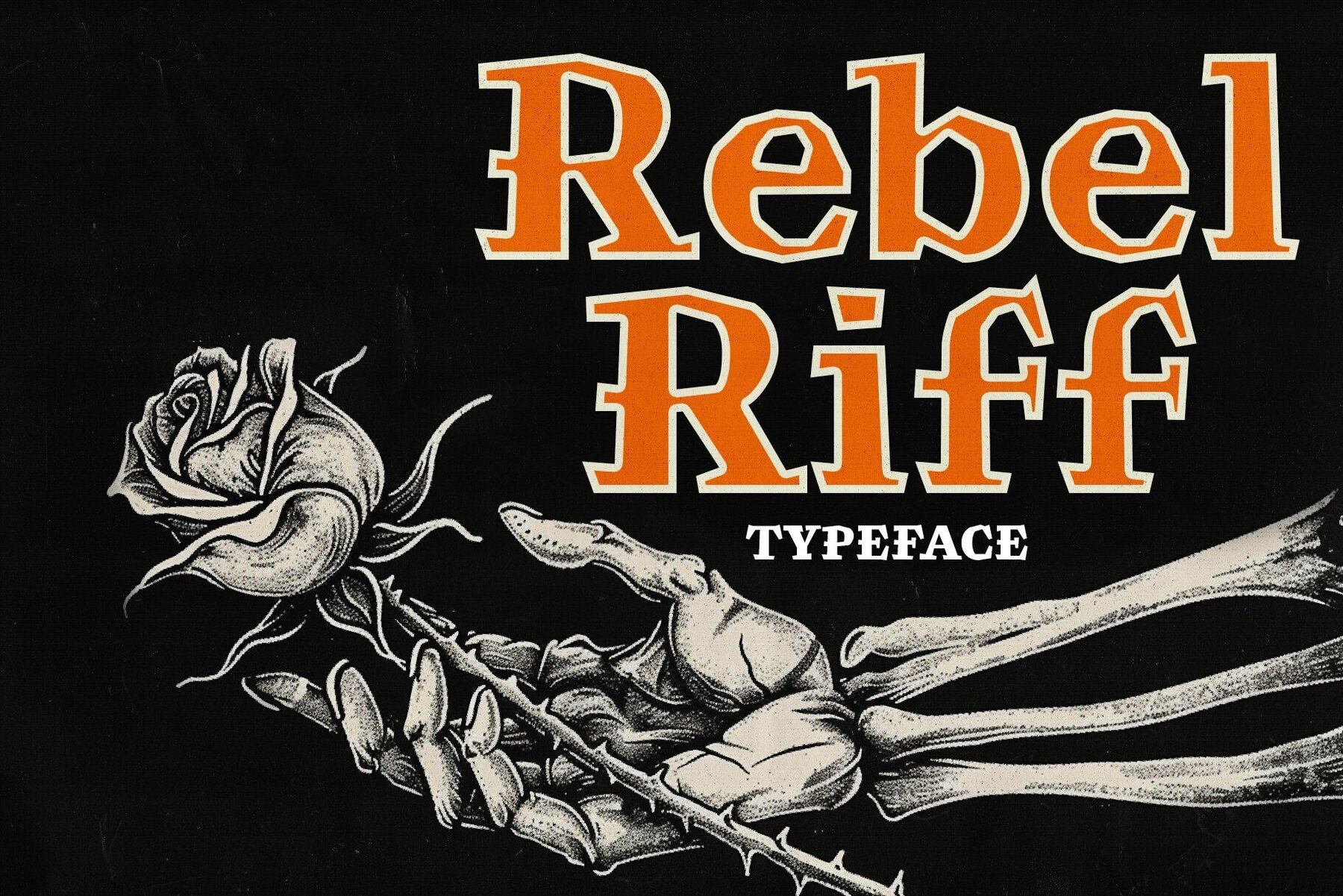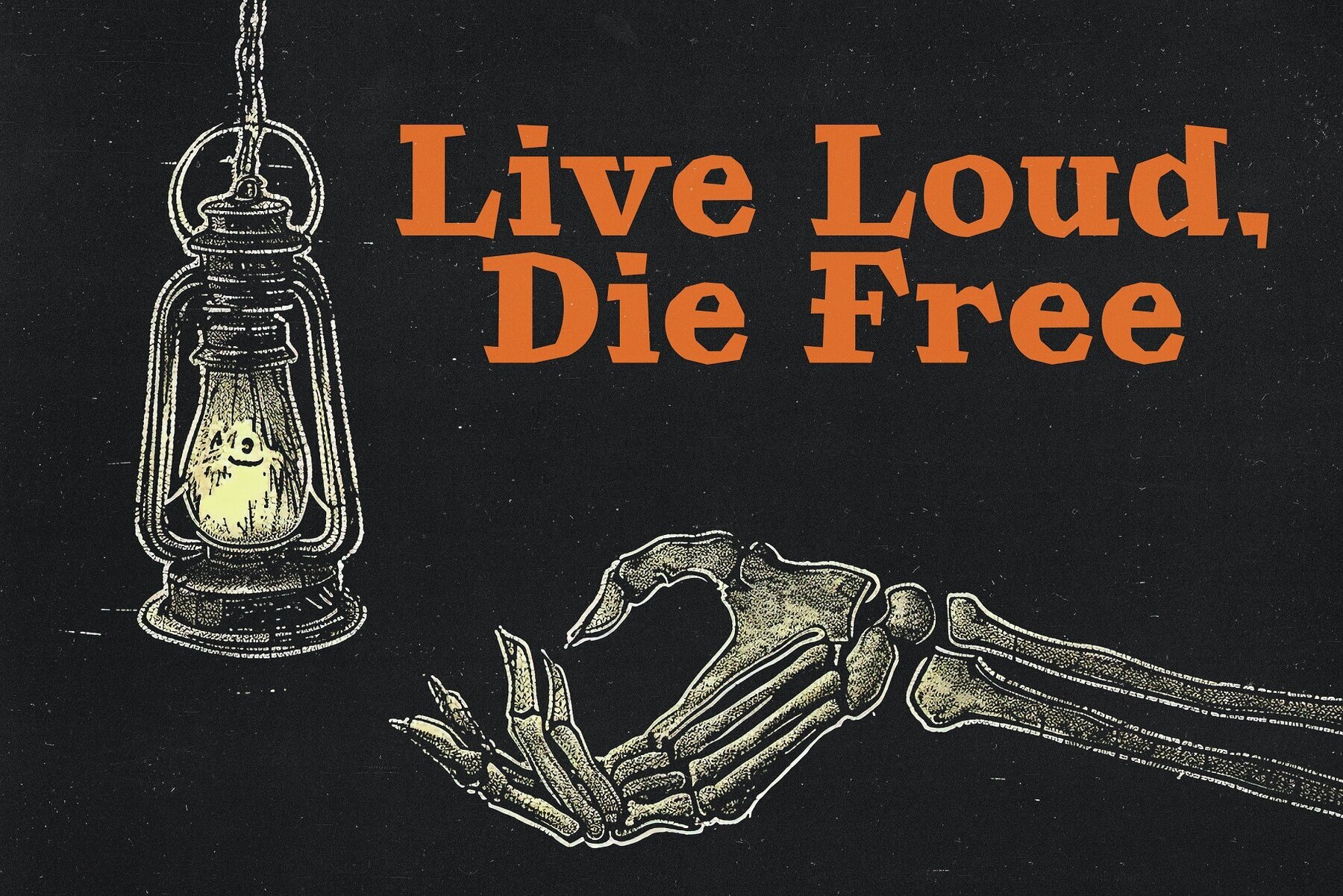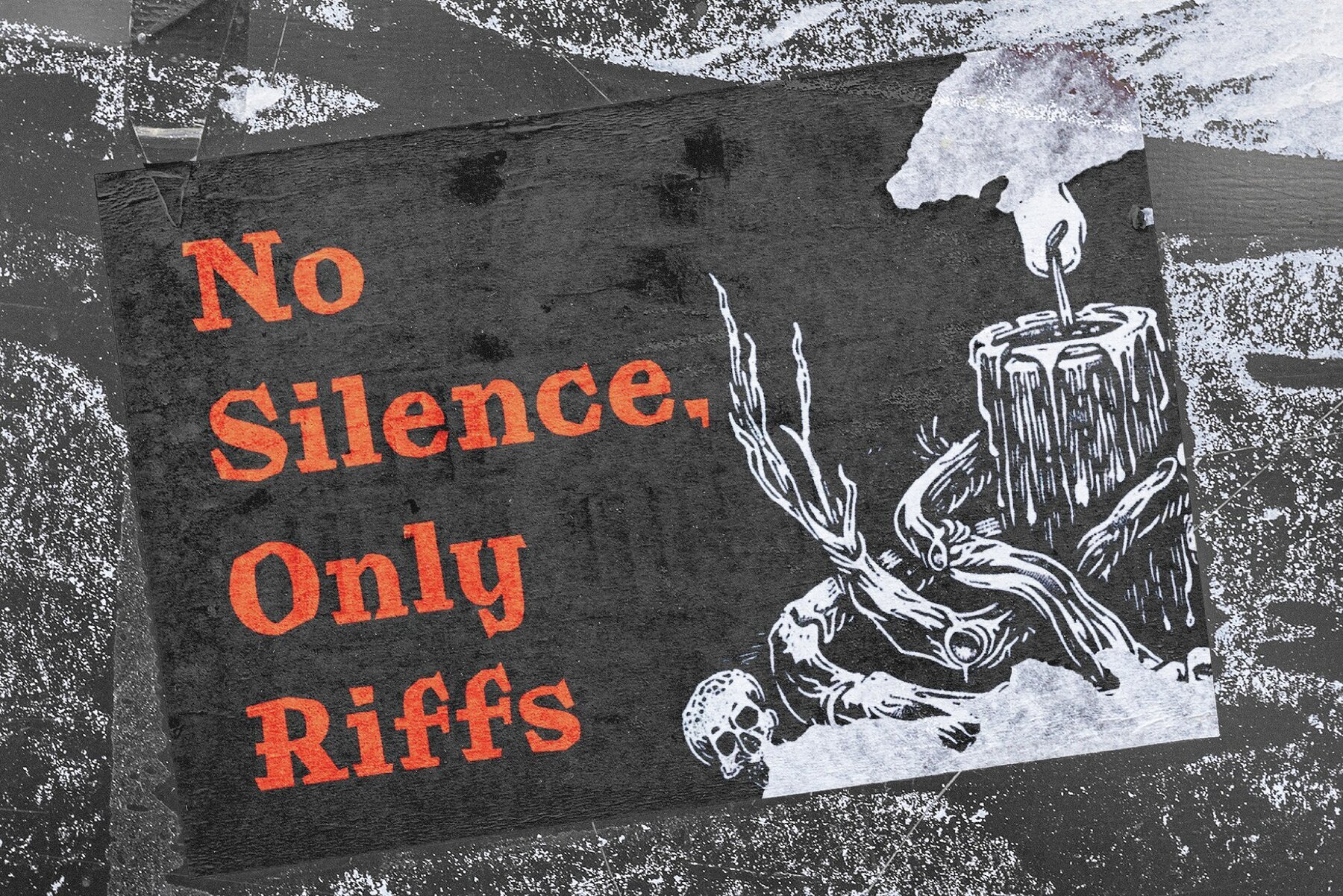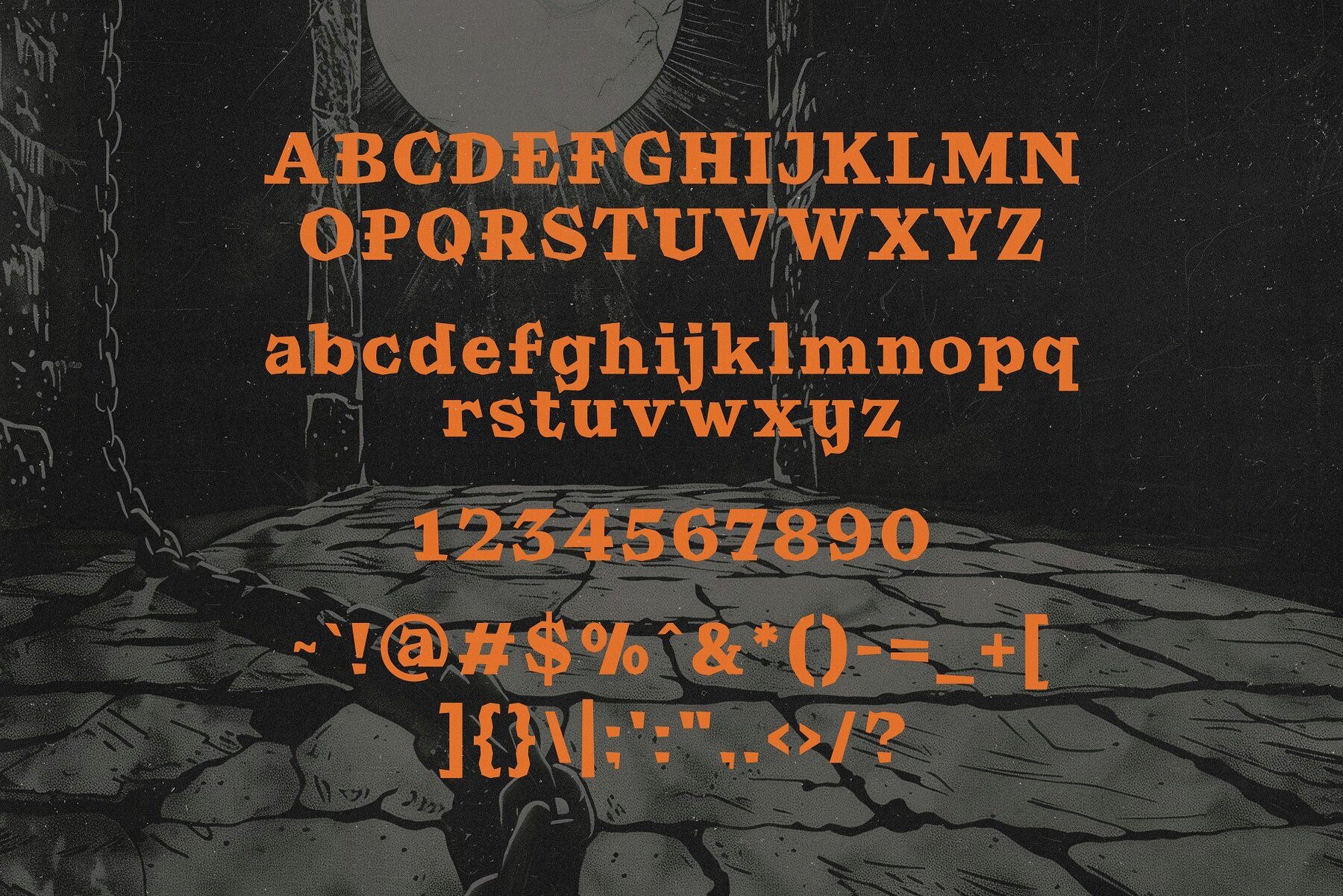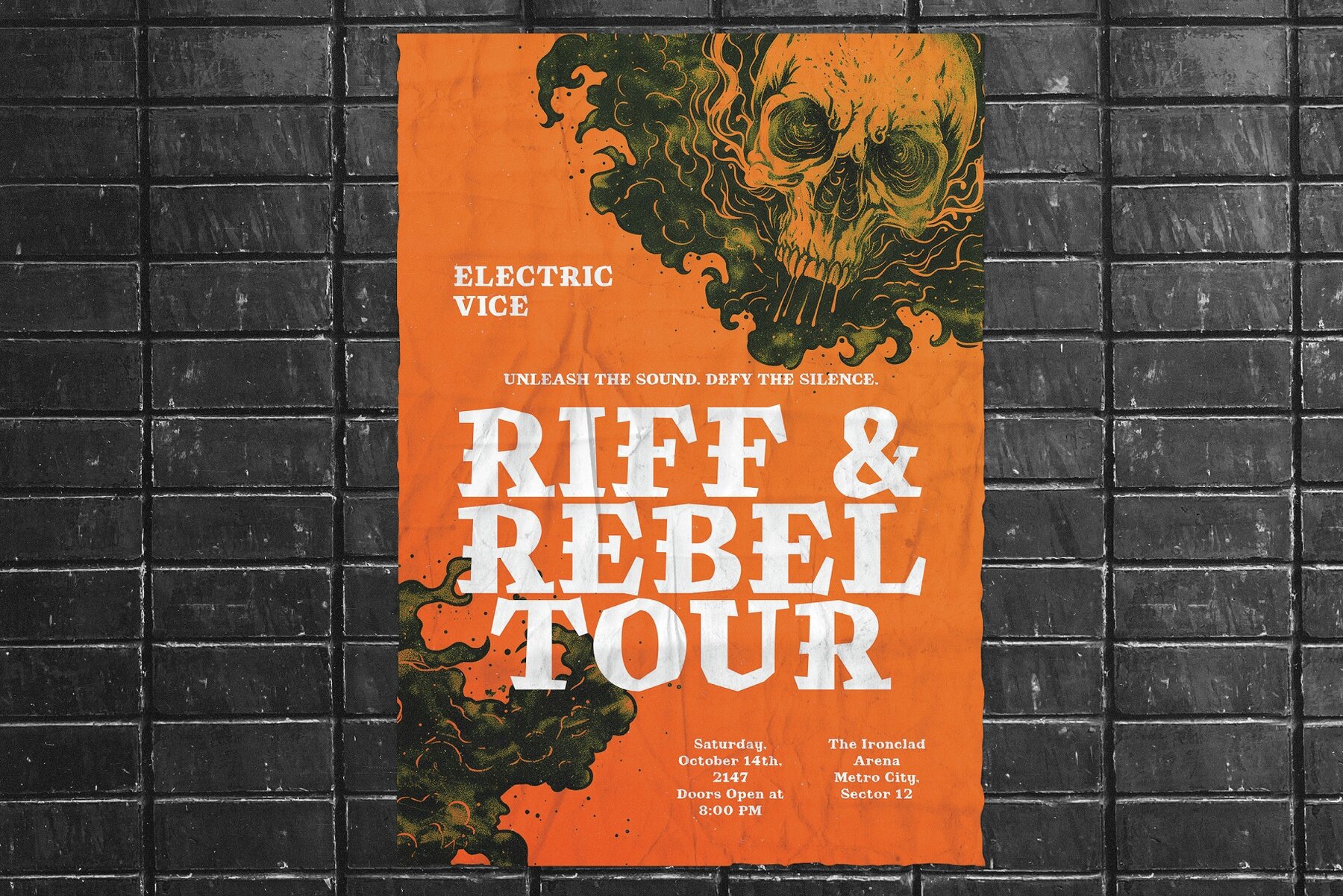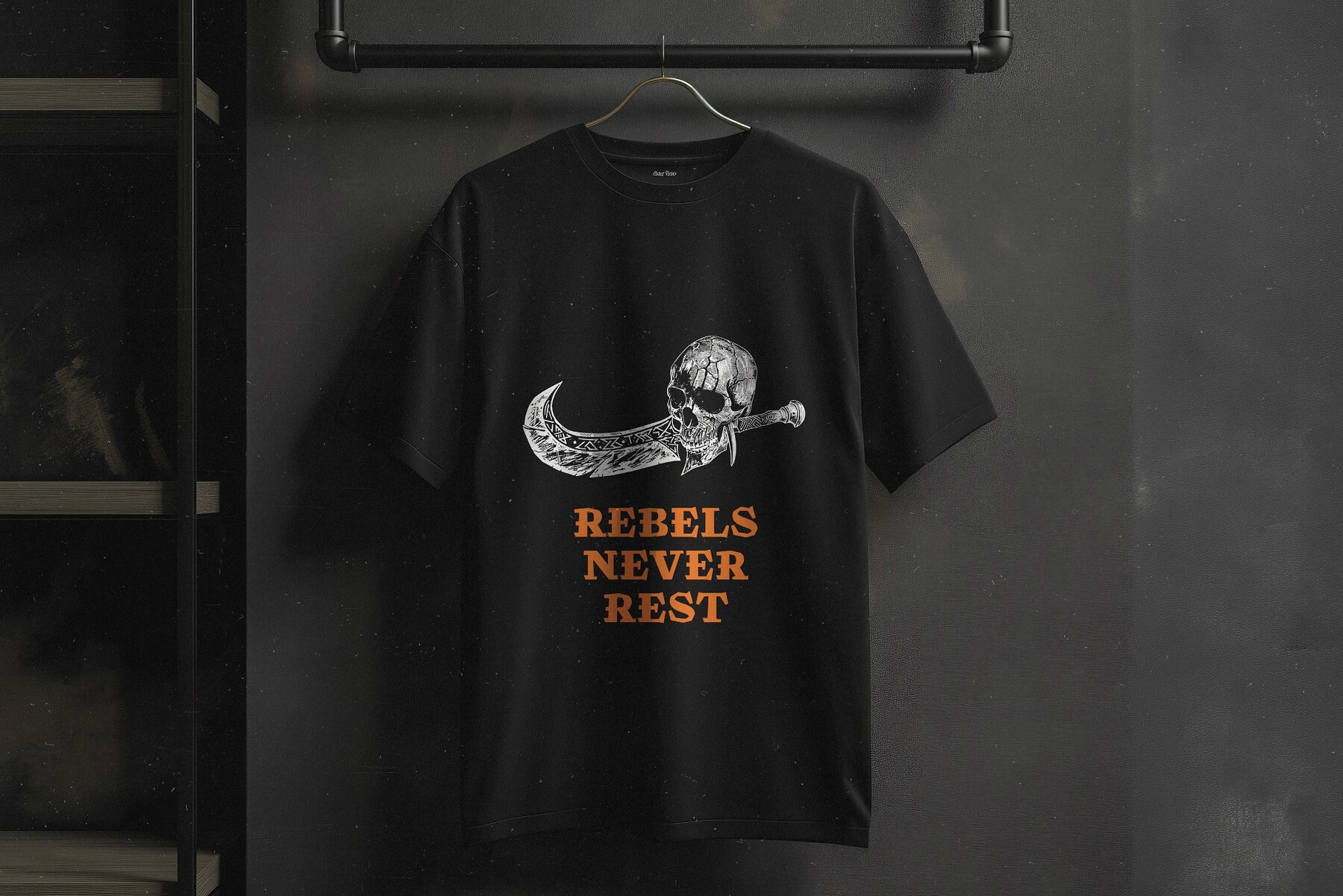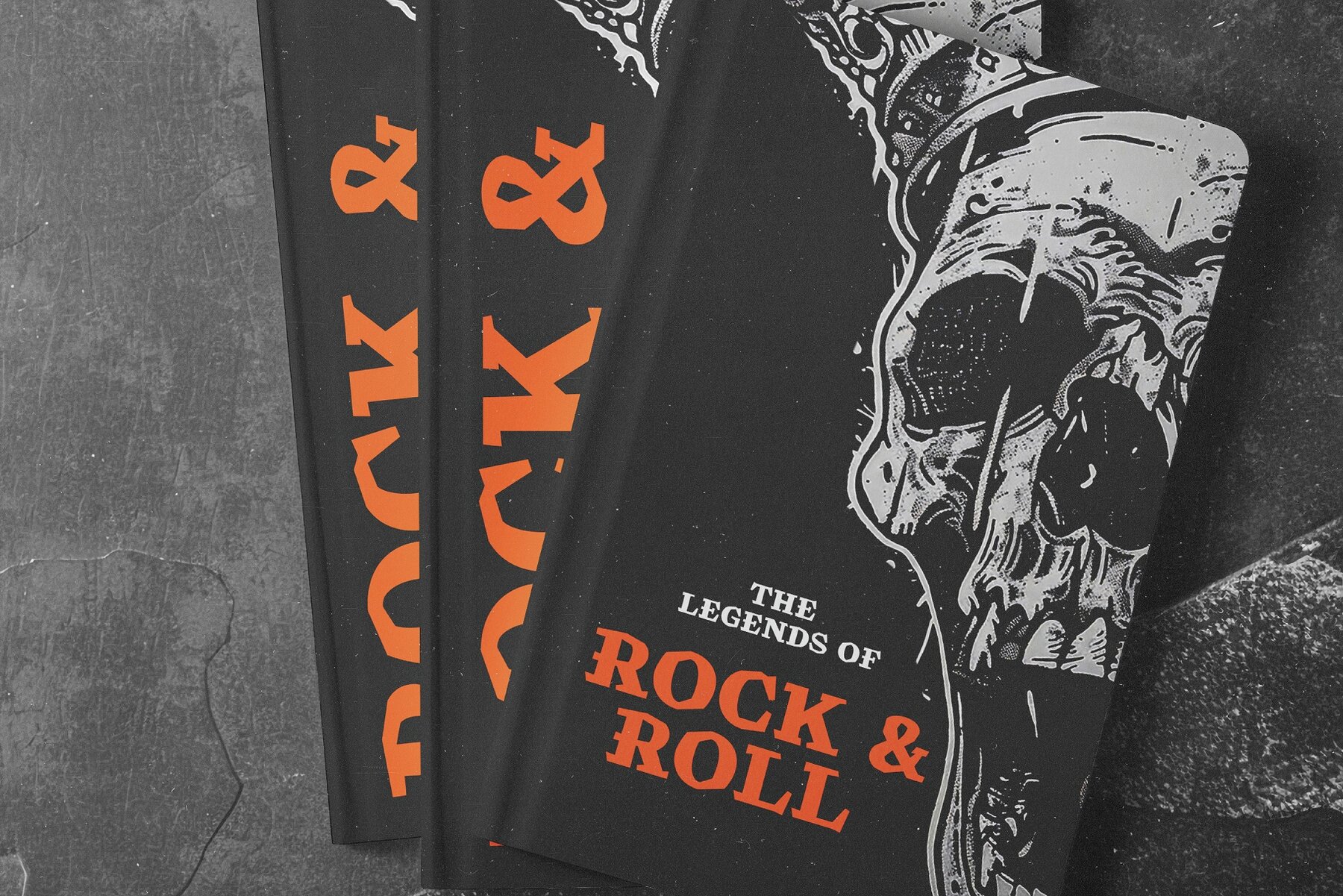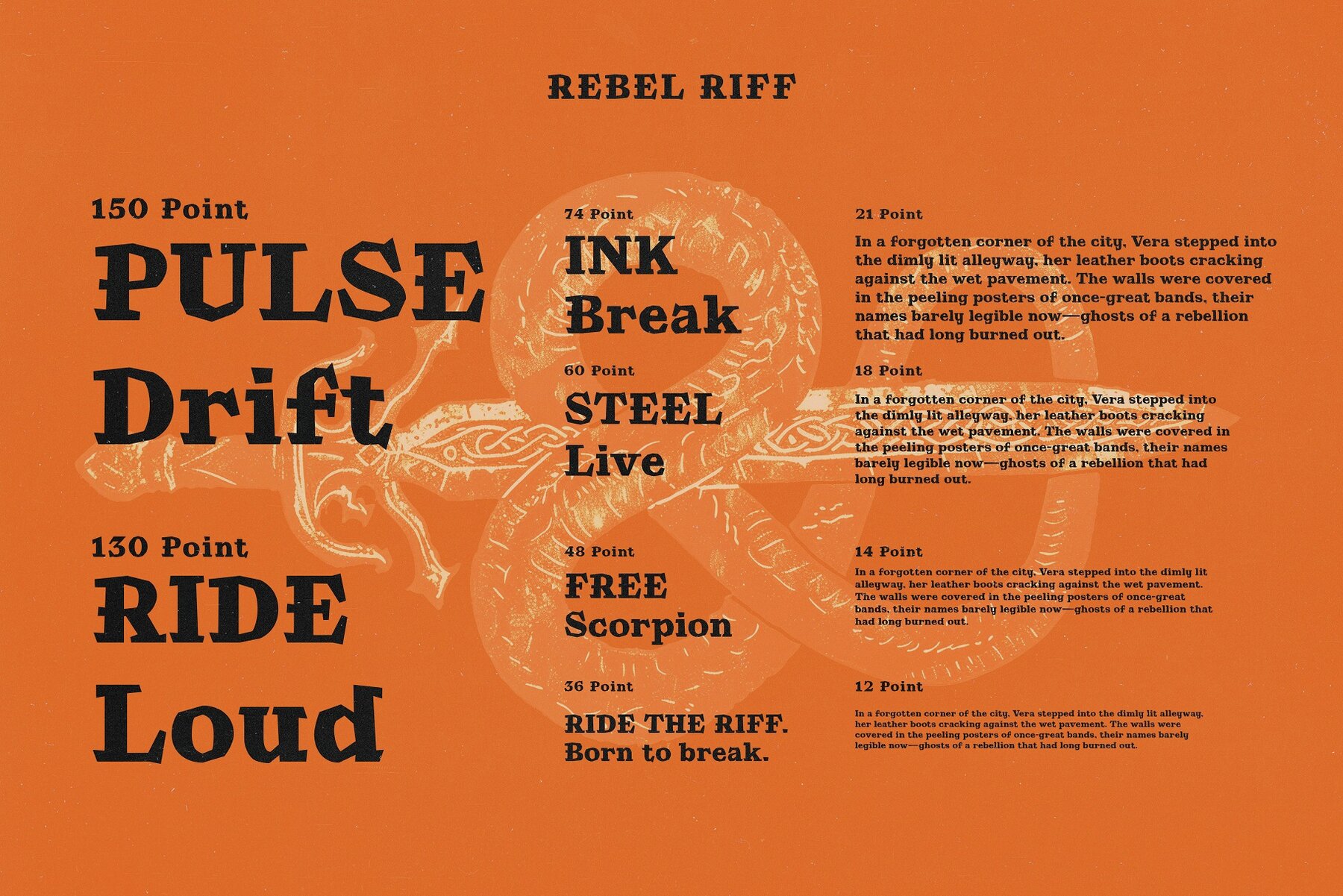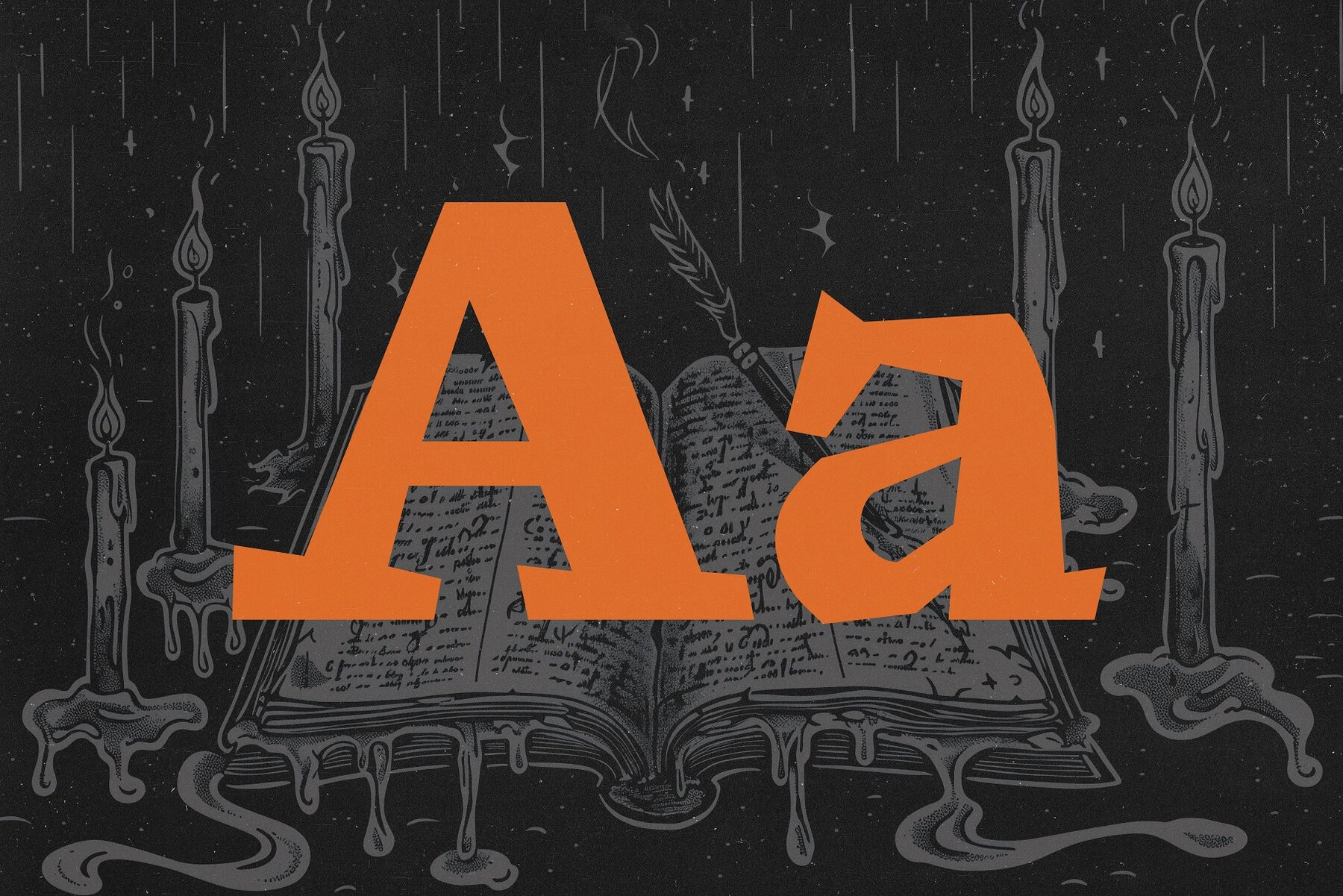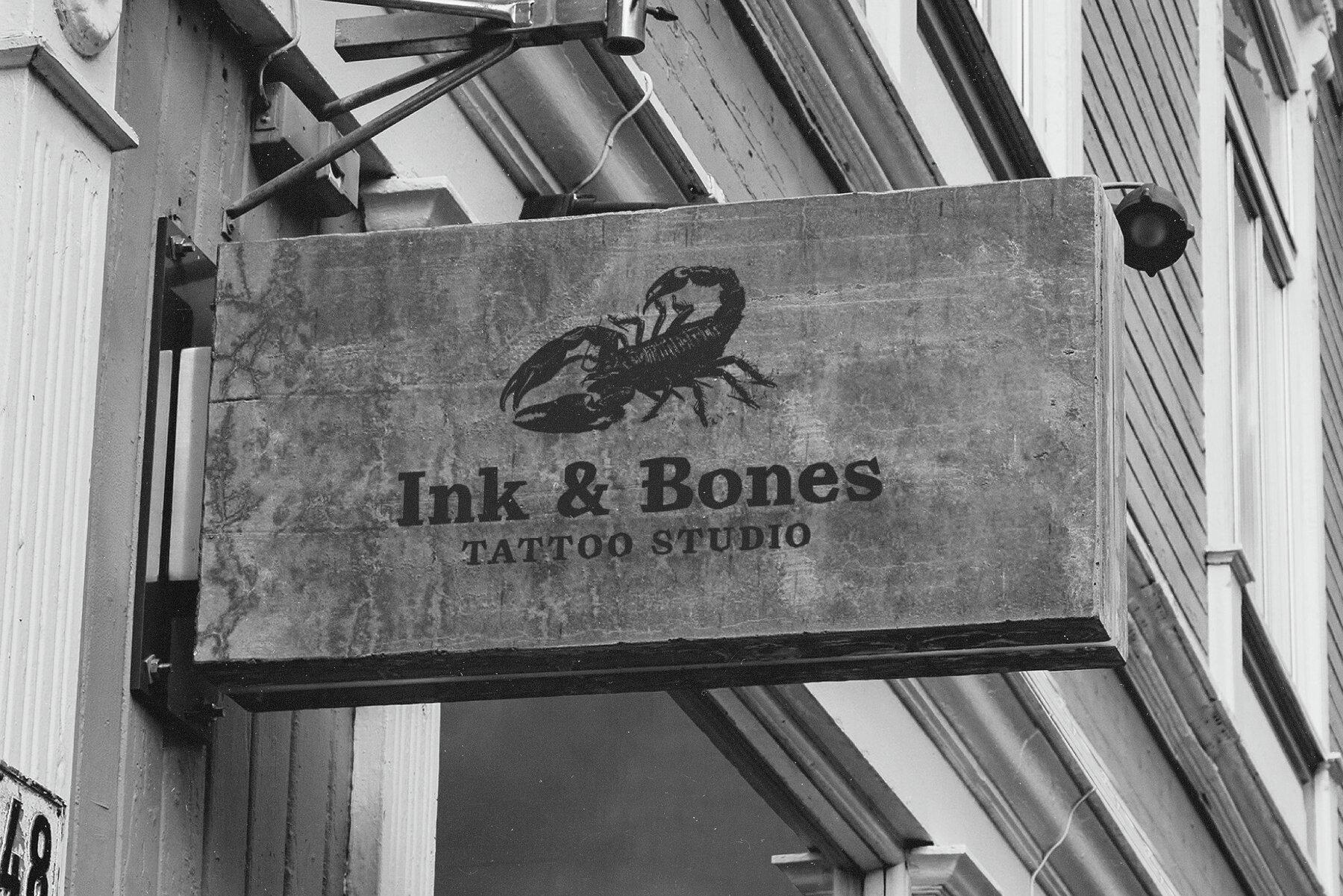
Rebel Riff Font
Rebel Riff
Rebel Riff is a striking typeface that embraces boldness and defiance. With its rugged edges and vibrant energy, this font is crafted for projects seeking to stand out. Perfect for those who create their own path, Rebel Riff is ideal for designs that demand attention, such as album covers, posters, and streetwear. Its unique character adds an untamed aesthetic to any project.
Capture the spirit of rebellion with Rebel Riff. Its distinct personality infuses designs with individuality and attitude, ensuring that your creative work makes a memorable impact. Whether you're working on edgy apparel or vibrant visual art, this typeface is designed to make a lasting impression.